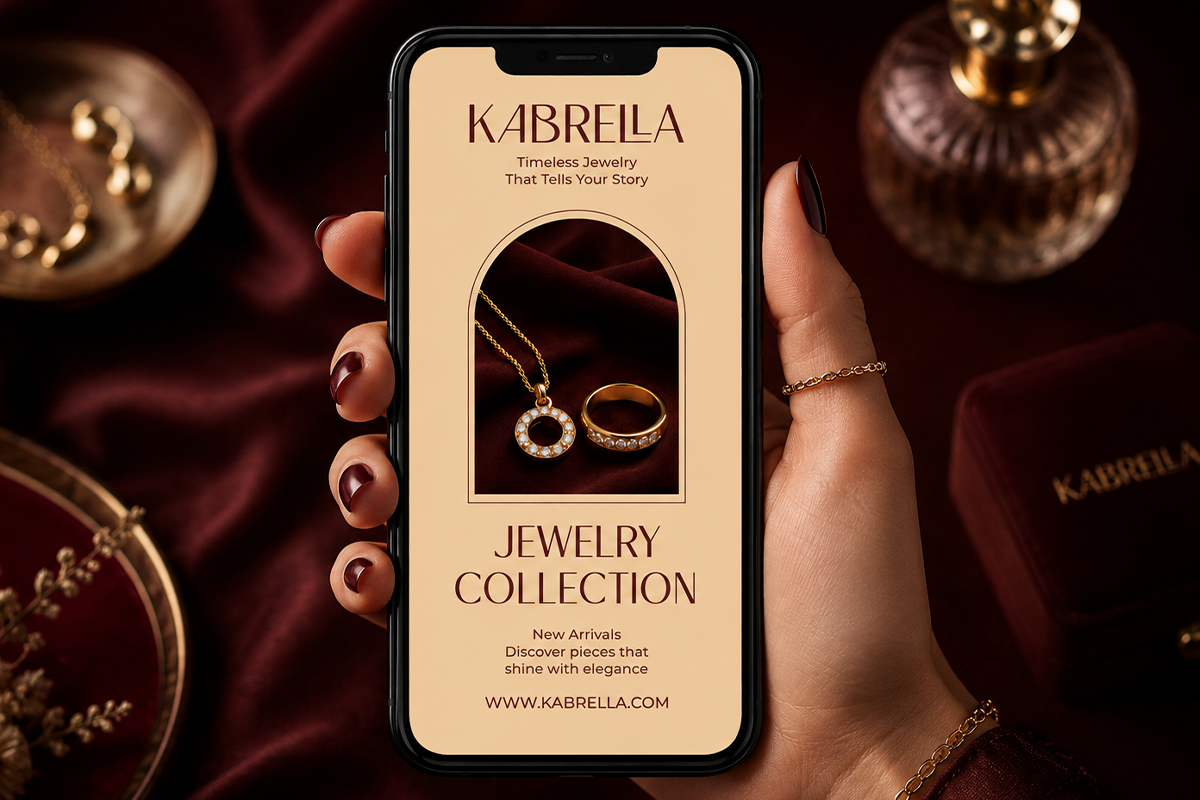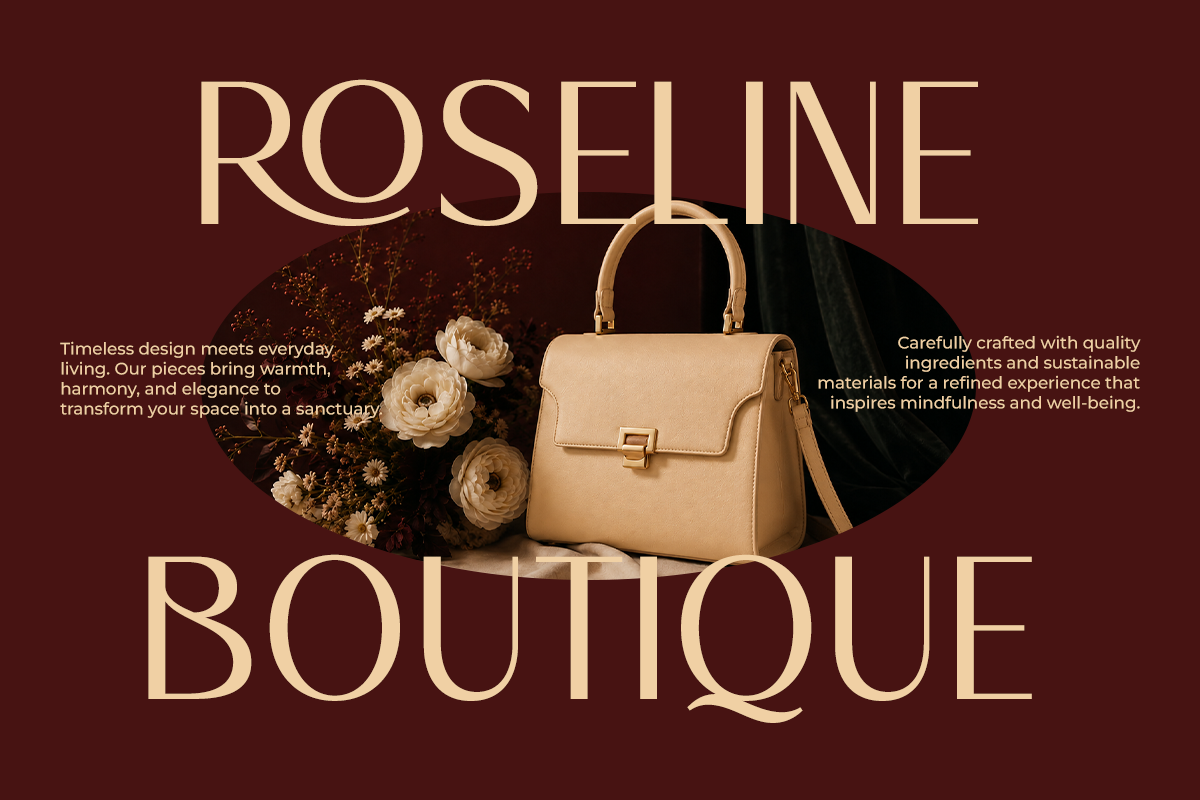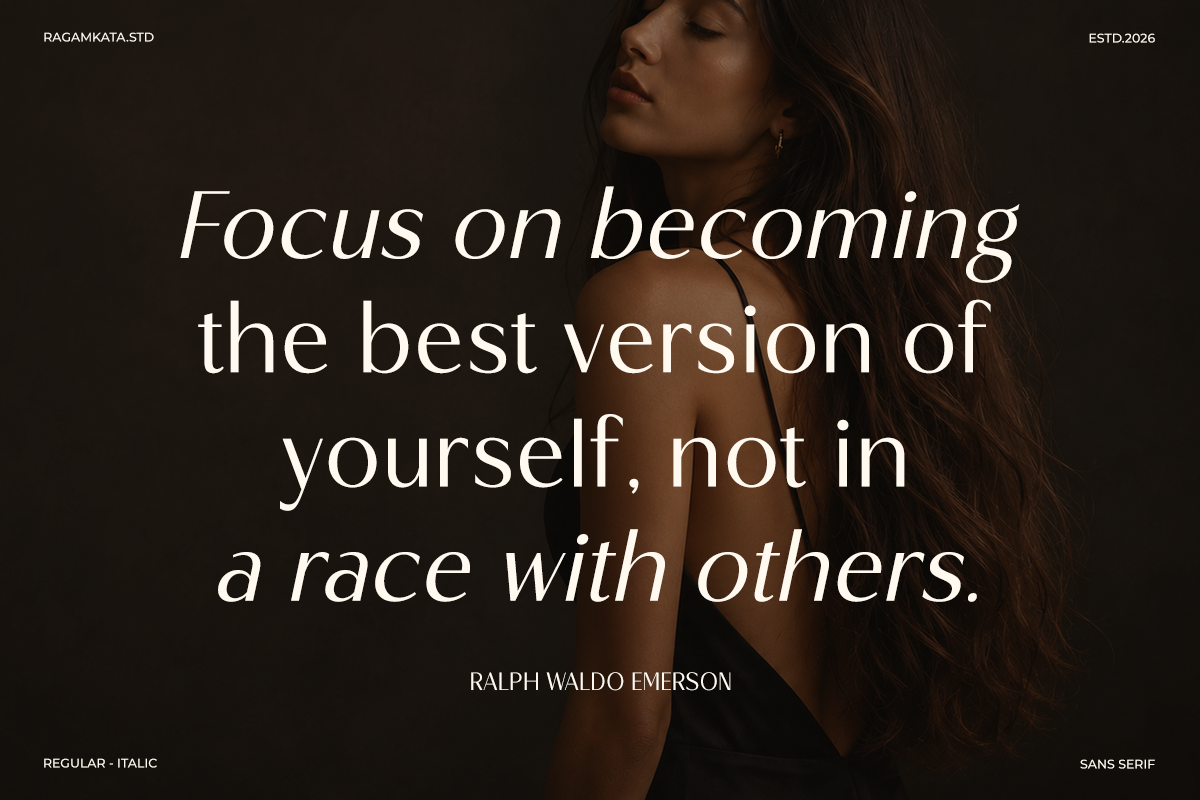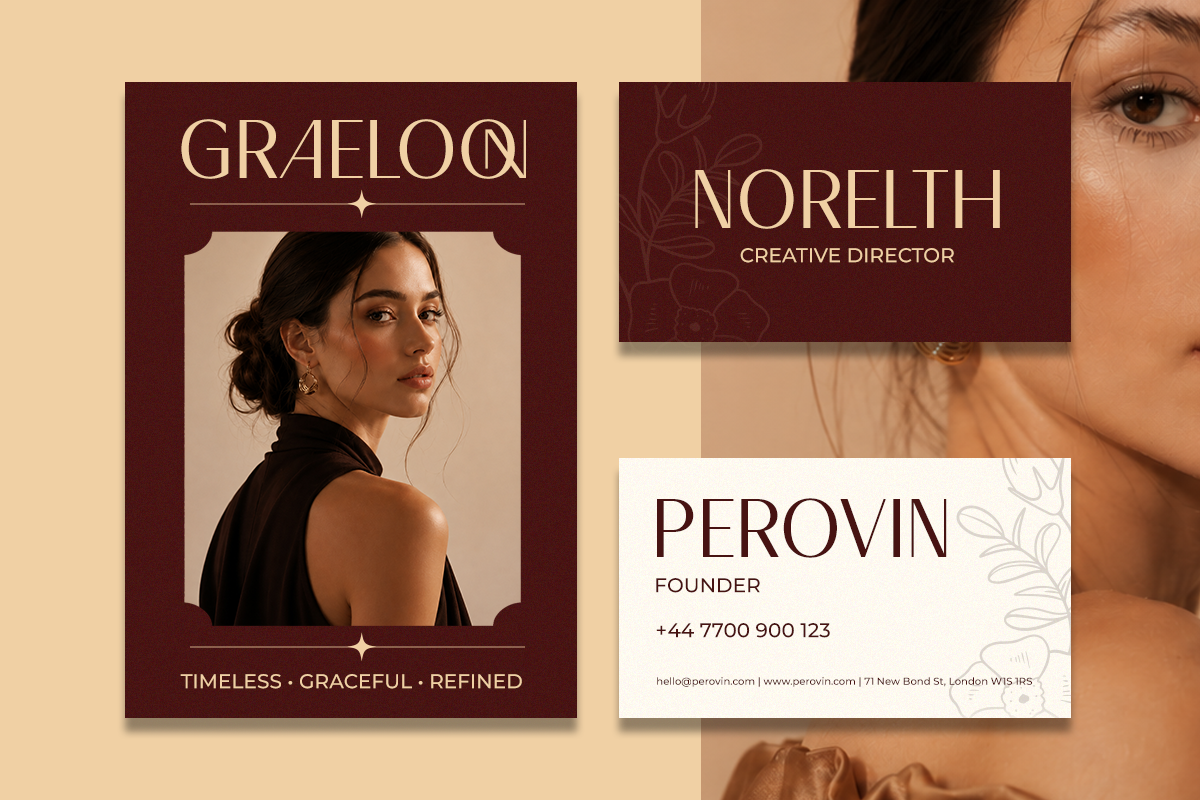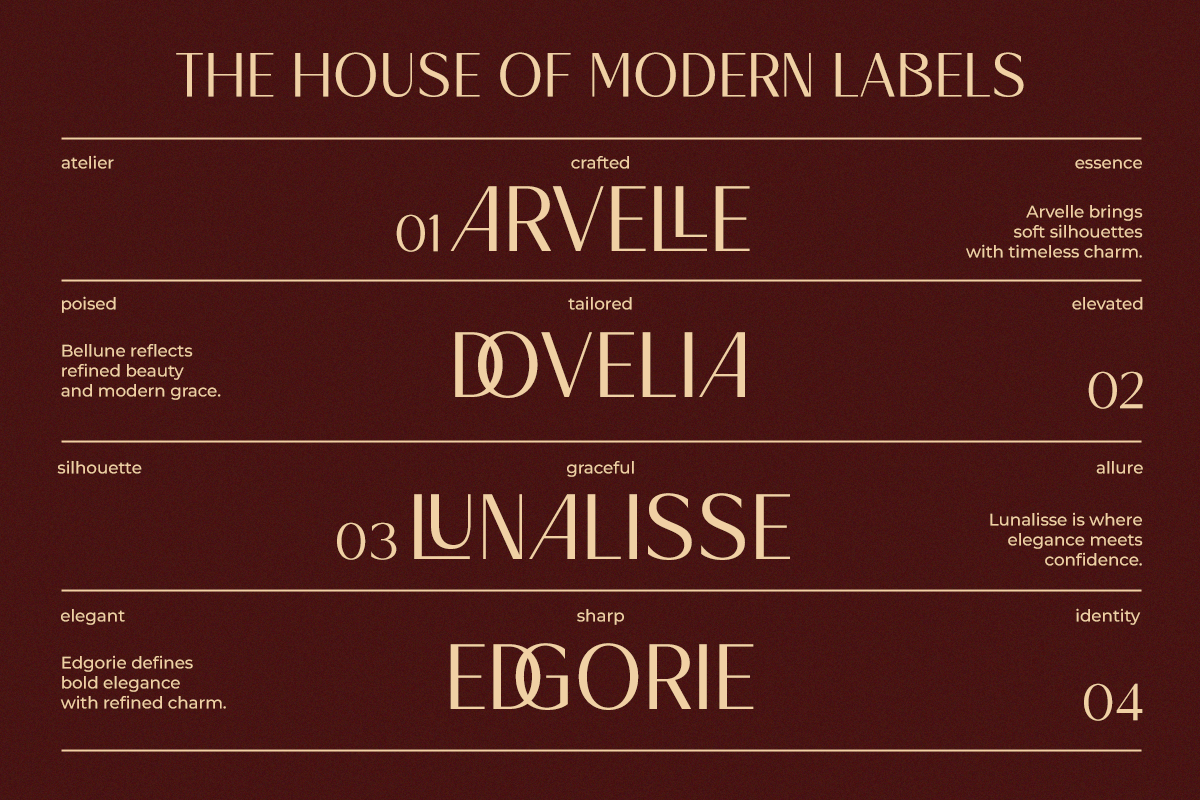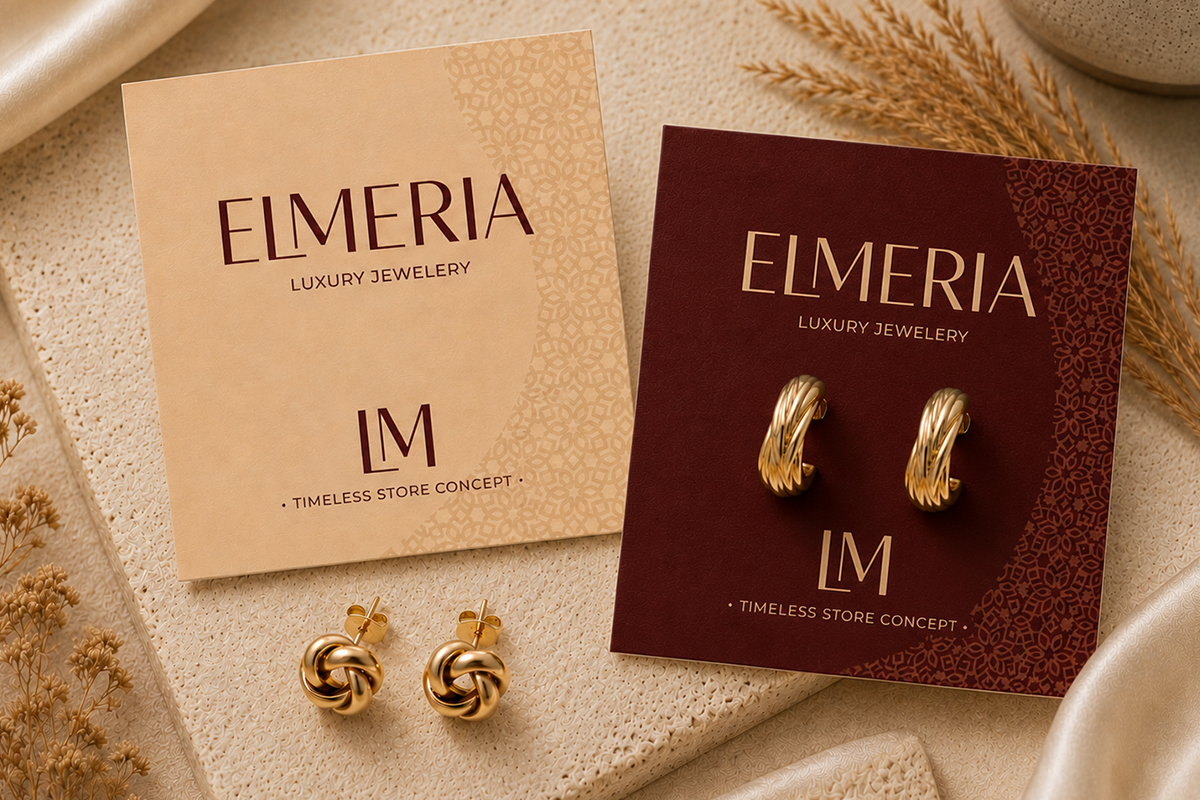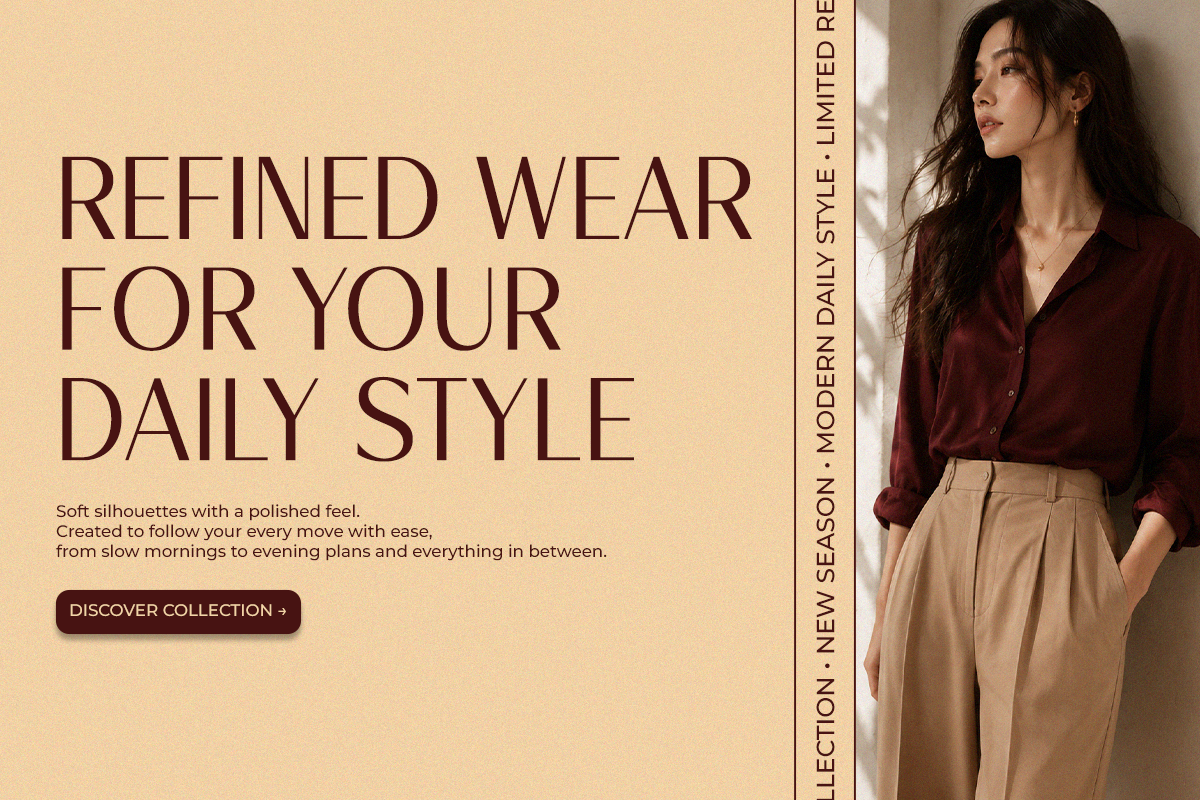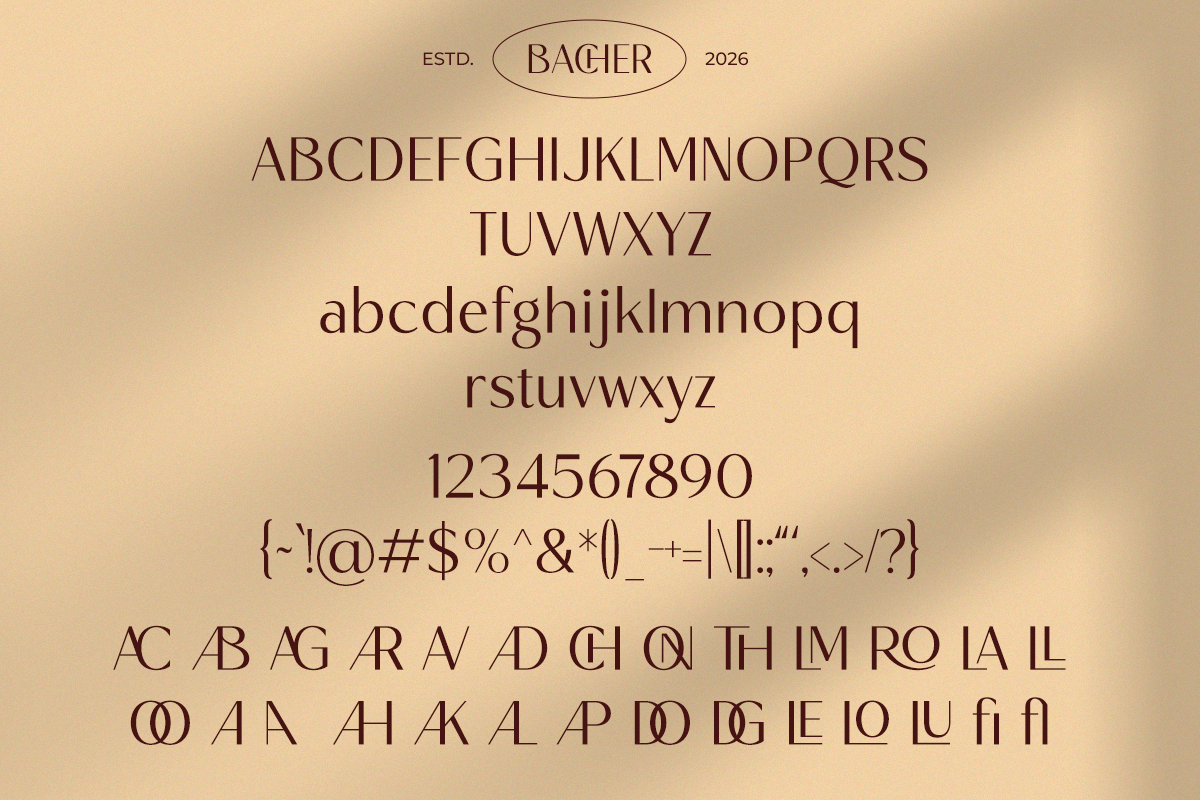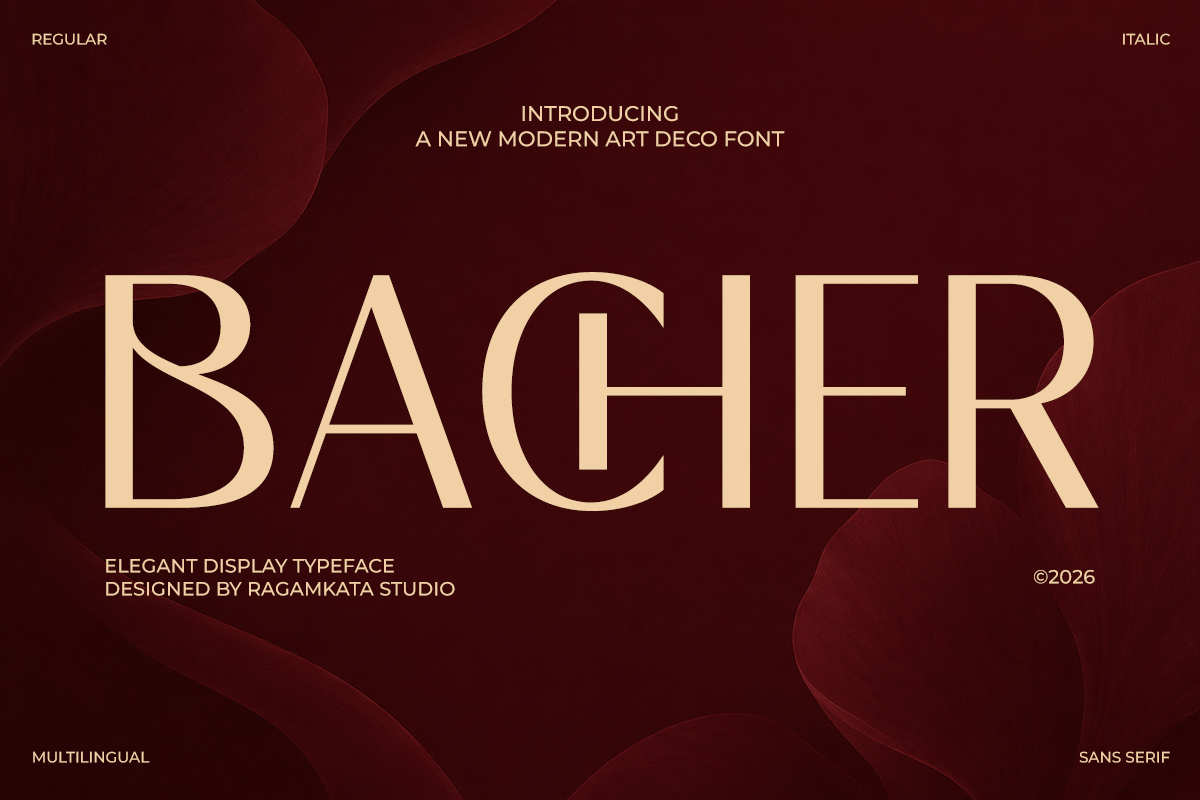
Bacher - Ligature Elegant Sans Font
Bacher is a sophisticated modern Art Deco typeface that blends timeless elegance with contemporary minimalism. Inspired by the glamour of the Art Deco era, this display font features refined geometric forms, graceful curves, and high-contrast letterforms that create a luxurious visual presence. Its distinctive character makes every headline feel premium, stylish, and memorable.
Designed for modern branding needs, Bacher delivers exceptional versatility across luxury logos, fashion editorials, beauty packaging, hotel branding, jewelry promotions, wedding invitations, magazine headlines, and premium social media content. The clean structure and elegant proportions provide excellent readability while maintaining a strong artistic identity that captures attention instantly.
Bacher is perfect for creating a high-end brand identity, an editorial layout, a cosmetic product line, or a sophisticated marketing campaign, Bacher adds an unmistakable sense of prestige and refinement. The combination of Art Deco influence and modern aesthetics makes it a valuable asset for designers seeking elegance, luxury, and timeless appeal.
Regular and Italic Style
Stylistic Ligatures
Number, Symbol and Punctuation
Multi Language Support